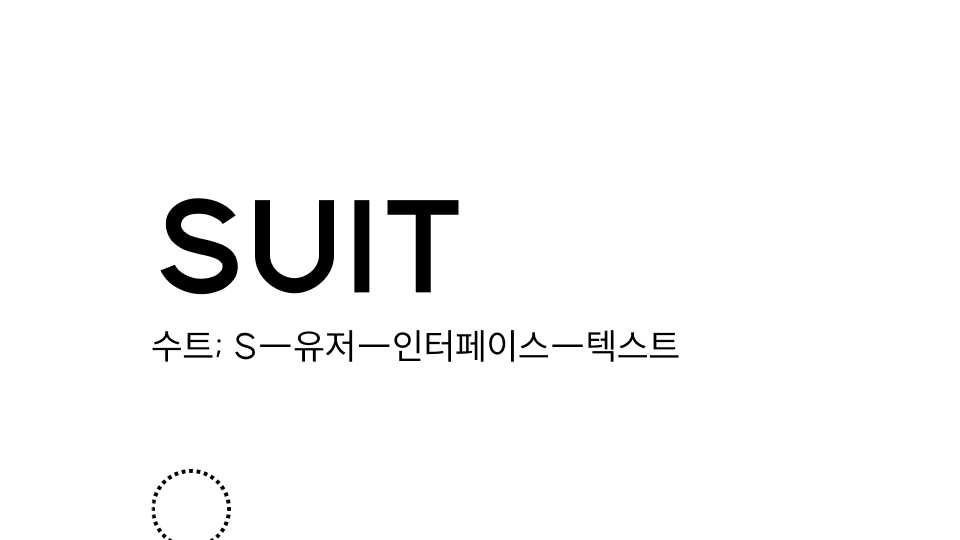
Download Suit typeface, a modern geometric sans serif typeface designed for the main part of UI that maintains a high-quality form without repeated effort and reduces wasted communication.